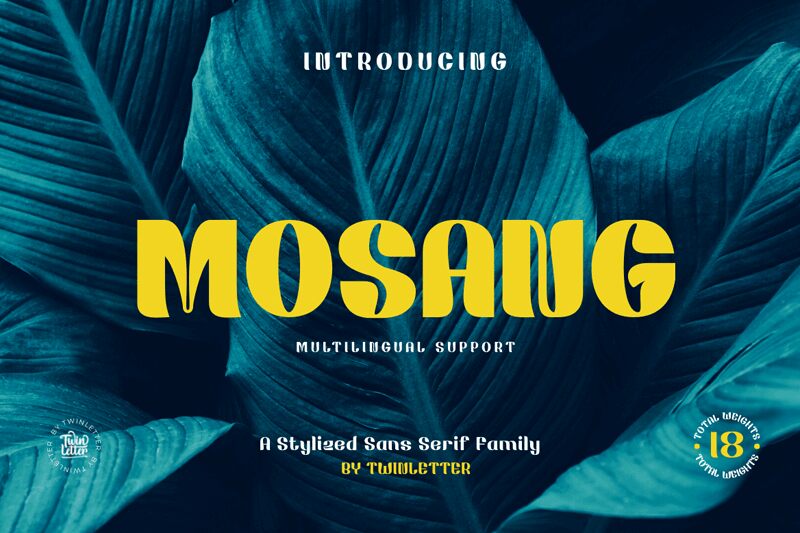
MOSANG Black is an extraordinary display font that will captivate your audience with its striking presence and impeccable design. Crafted by twinletter, this stylized sans serif typeface exudes a sense of boldness and power.
Its extra-bold weight demands attention and makes it perfect for headlines, logos, posters, and branding projects. MOSANG Black is ideal for creating eye-catching designs that leave a lasting impression. Whether you're working on a fashion campaign or a music festival poster, this versatile font will elevate your projects to new heights of creativity and sophistication.
MOSANG Black